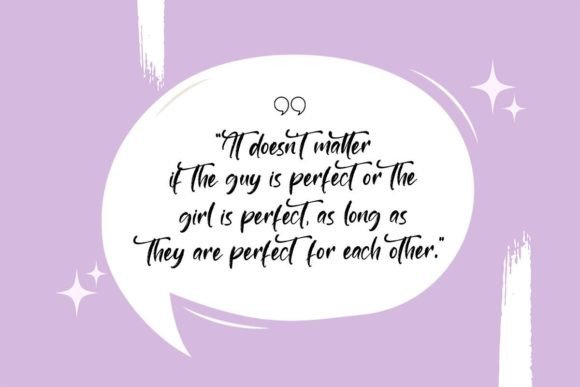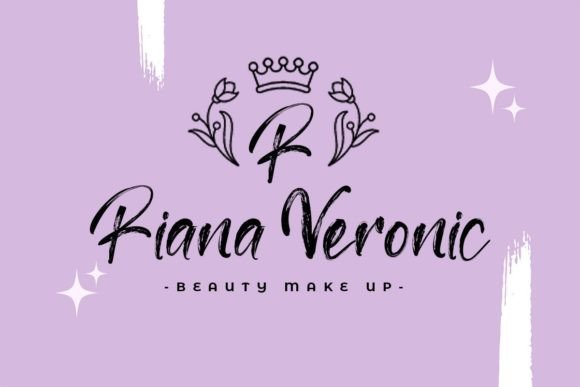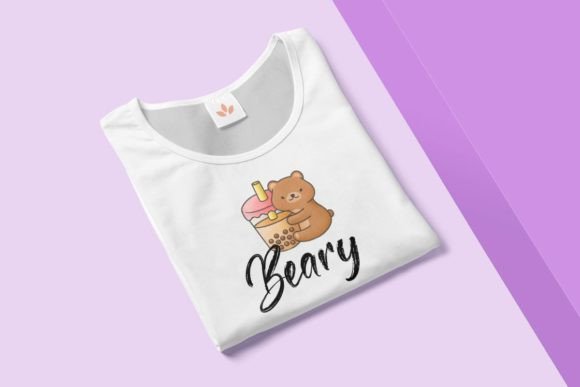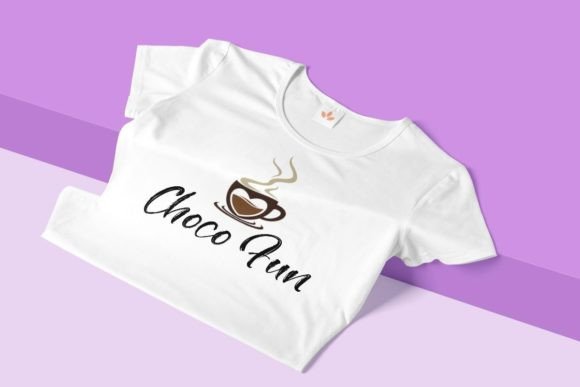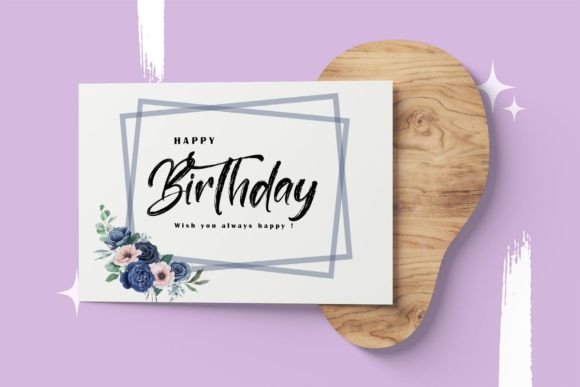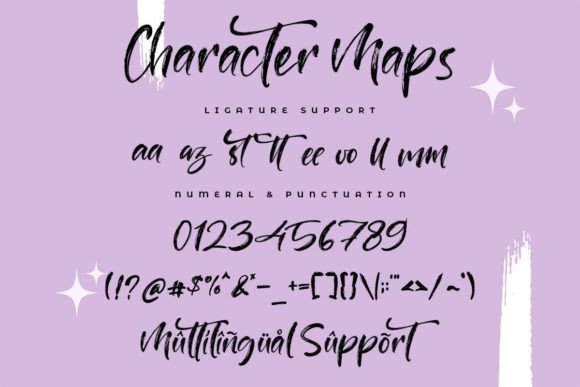
Patriciaz Font
About Patriciaz Font
Patriciaz, a fresh and authentic calligraphy brush style font, introduces a vibrant and dynamic energy to your designs. Crafted with a brushstroke aesthetic, this font is versatile and well-suited for a diverse range of creative applications, making it perfect for both personal and commercial projects. From invitations to kids’ books, shop signage, band merchandising, apparel, and beyond, Patriciaz adds a stylish and expressive touch to your design toolbox.
The calligraphy brush style of Patriciaz brings a sense of authenticity and free-flowing elegance to your text. Its natural and organic strokes capture the essence of handwritten brushwork, creating a look that is both contemporary and timeless.
The font’s PUA encoding feature ensures easy access to a variety of amazing glyphs and ligatures, providing you with creative freedom to customize and enhance your designs. This feature allows you to experiment and personalize your text, making it a valuable asset for your design projects.
Incorporate Patriciaz into your design repertoire and witness how it infuses a fresh and authentic vibe into your creations. Whether you’re designing for print or digital media, Patriciaz stands out as a font that adds a touch of creativity and flair to a wide array of design projects. Let Patriciaz be the brush-style font that brings a dynamic and expressive quality to your personal and commercial endeavors.